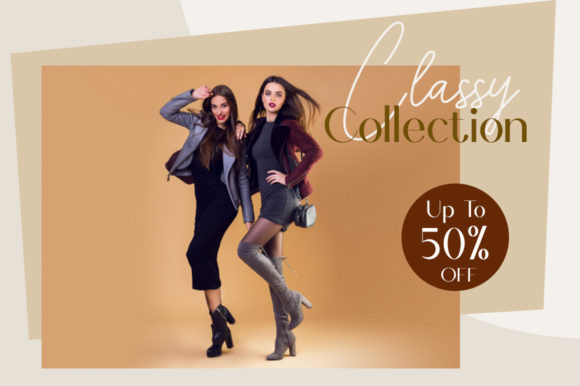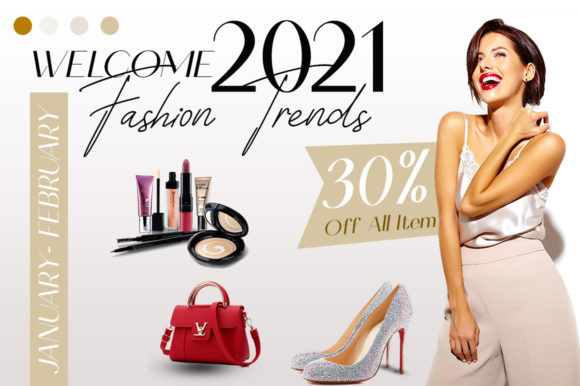
Scientific Graphics Font
Scientific Graphics is an elegant duo font (Sans Serif & Script). Its natural and unique style makes it incredibly fitting to a large pool of designs. The only limit is your imagination!